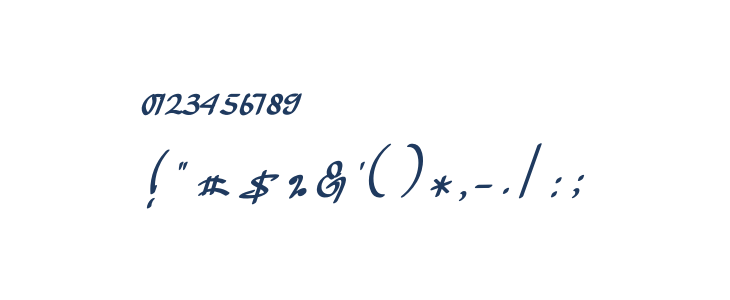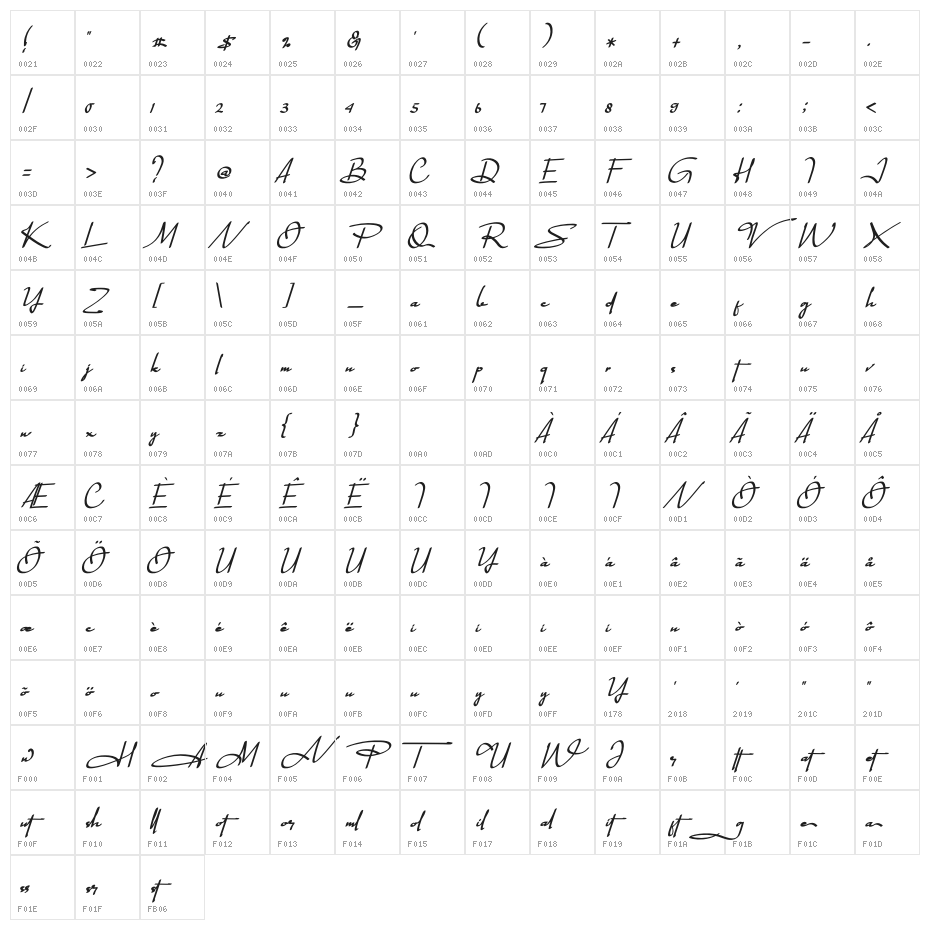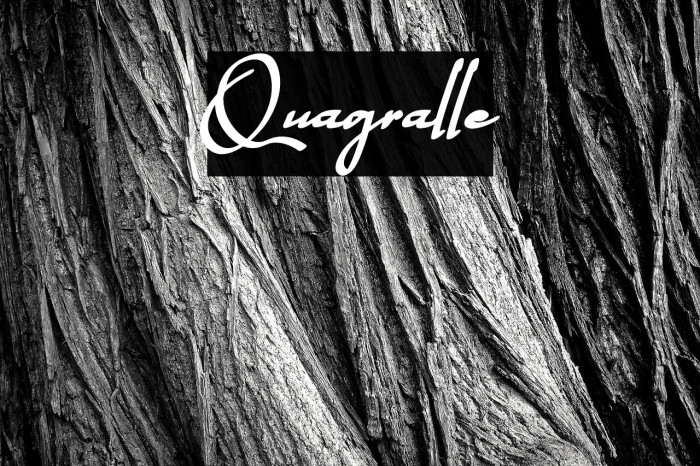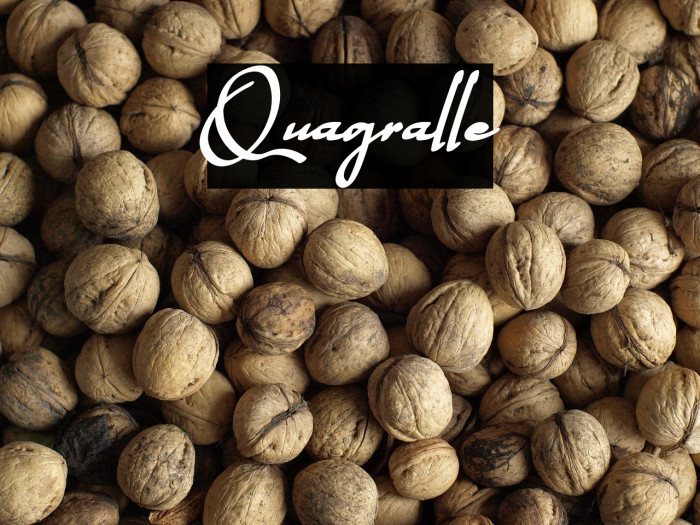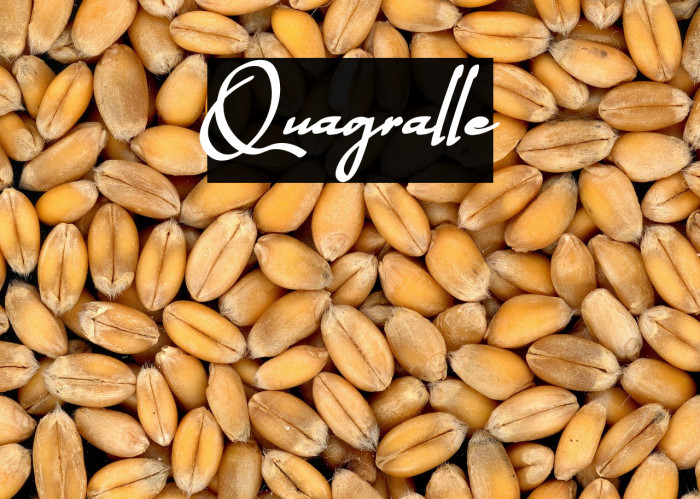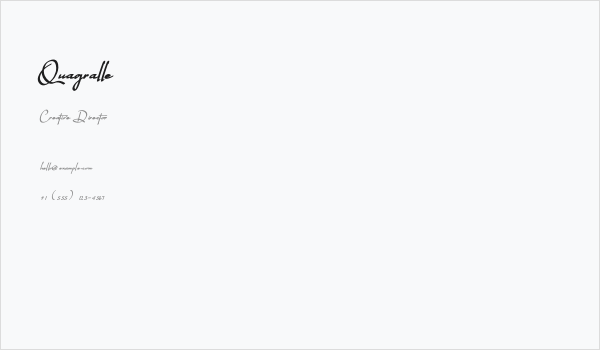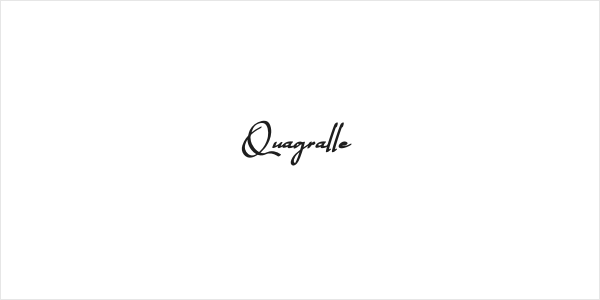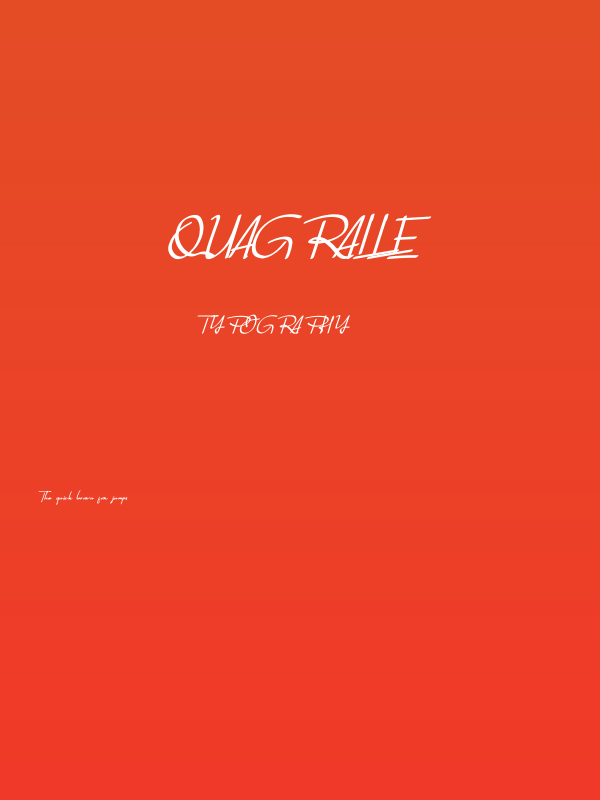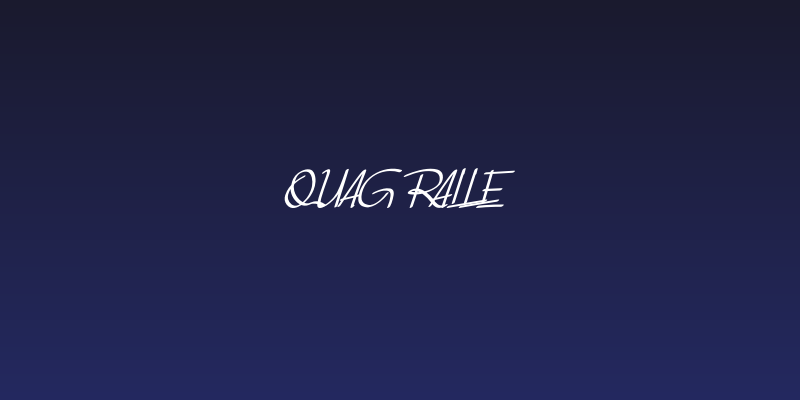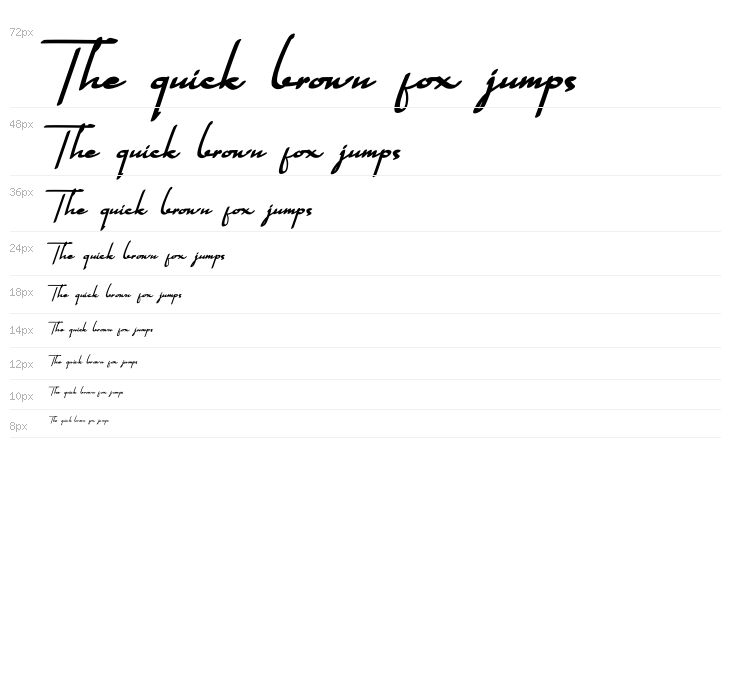
Quagralle Font
Quagralle Description
This font exhibits a dynamic and fluid script style, characterized by its elegant and flowing letterforms. The uppercase letters are bold and slightly slanted, with distinctive loops and swashes that add a sense of movement and grace. The lowercase letters maintain a consistent flow, with smooth curves and a slightly condensed appearance. The numerals are clear and legible, matching the overall style of the alphabet. Special characters are thoughtfully designed to complement the script, featuring similar curves and flourishes. This font is ideal for projects that require a touch of sophistication and elegance.
| Use Case | Logos, Invitations, Editorial Design |
| Proposed Projects | Ideal for wedding invitations, elegant branding, and sophisticated editorial design. |